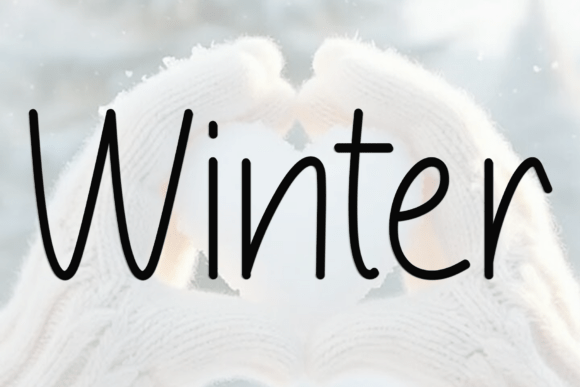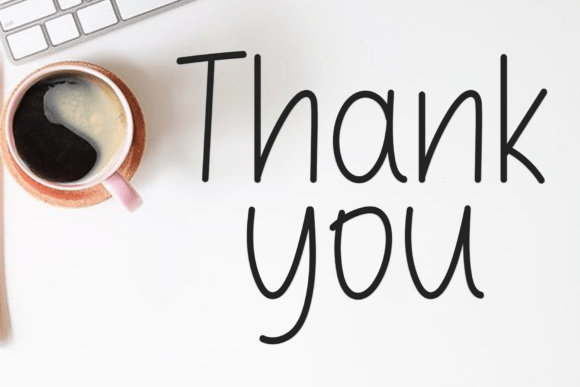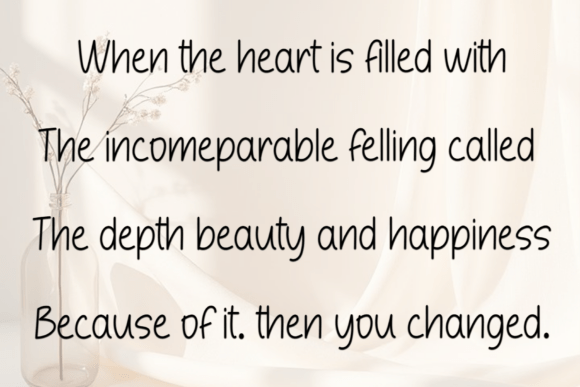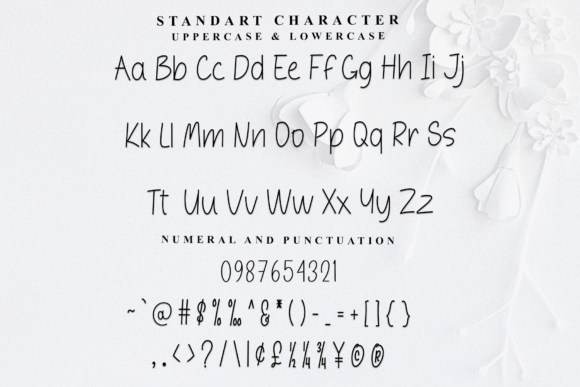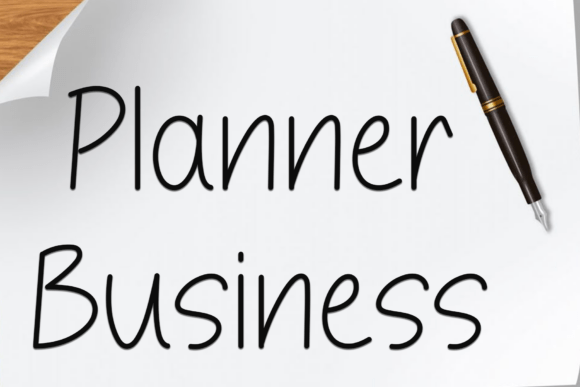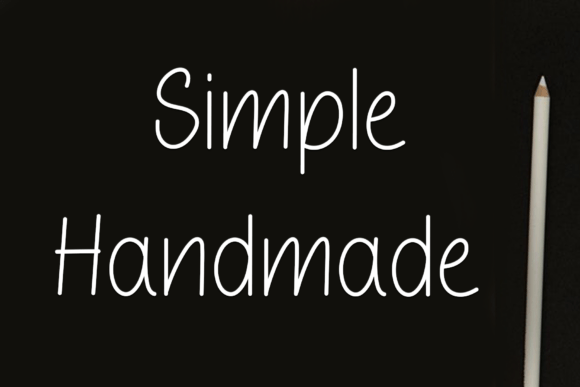
Introduction to Natural Farmhouse Font
Have you ever found yourself lost in a sea of design inspiration, desperately searching for the perfect font to bring your creative project to life? I know I have. It was on one such occasion that I stumbled upon the Natural Farmhouse Font – a sleek and minimalist typeface that has since become my go-to design resource.
As I delved deeper into the world of Natural Farmhouse Font, I discovered a hidden gem that perfectly captures the essence of rustic, rural aesthetics. With its smooth, rounded terminals and clean visual rhythm, this font is an exceptional choice for artisanal home decor branding, organic lifestyle blogs, and minimalist farm-to-table marketing.
Key Features of Natural Farmhouse Font
- Unique, hand-drawn design inspired by the charm of rural living, perfect for creative projects and design resources.
- High-quality font with clear, legible characters, ideal for use on transparent backgrounds or as a design element in creative projects.
- Perfect for use in invitations, signage, and other design elements where a natural, earthy feel is desired.
- Unique characteristics include subtle imperfections and texture, adding to the font’s organic and handmade feel.
Honest Review: Natural Farmhouse Font
I recently came across the Natural Farmhouse Font and was excited to give it a try in my latest creative project. This font has been a game-changer for me, and I think it could be for you too.
- ✨ High-quality design: The Natural Farmhouse Font is incredibly detailed and has a beautiful, rustic feel that’s perfect for any farmhouse or country-themed design.
- ✨ Transparent background: The font also comes with a transparent background, which is super useful for creating designs with a distressed or vintage feel.
- ⚠️ Limited font sizes: I found that the font doesn’t scale well to very large sizes, which can be a bit of a limitation for certain designs.
- ⚠️ Limited font styles: While the font is beautiful, it’s only available in a few different styles, which can limit its versatility.